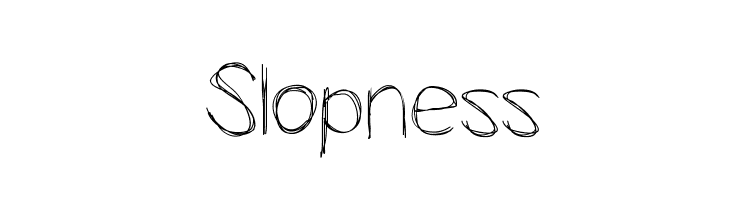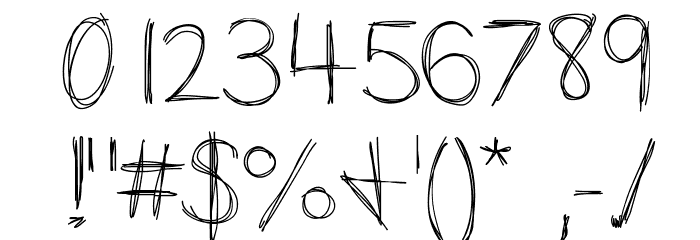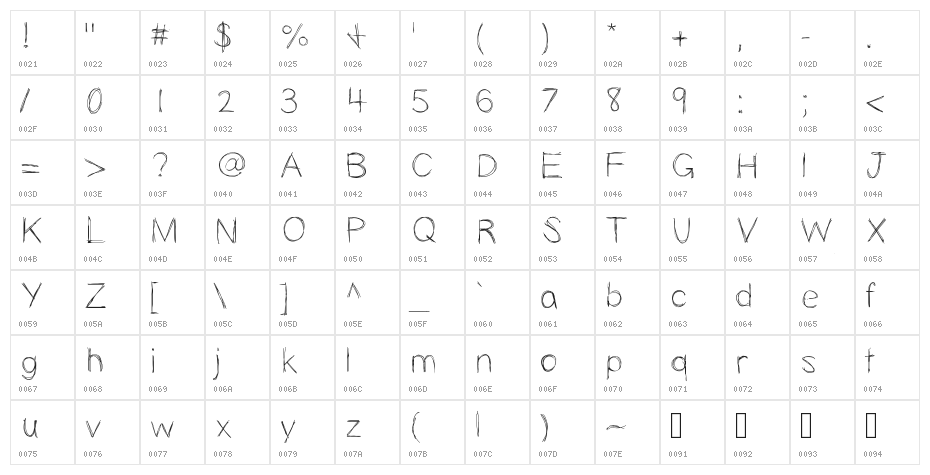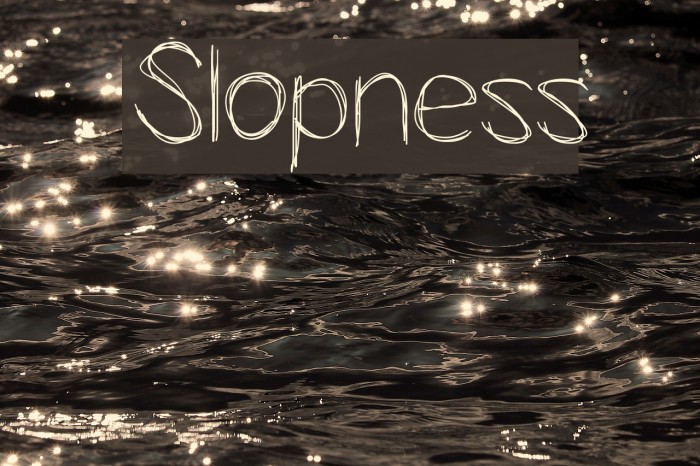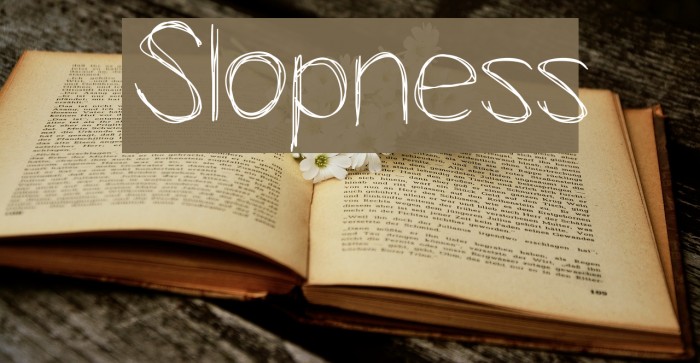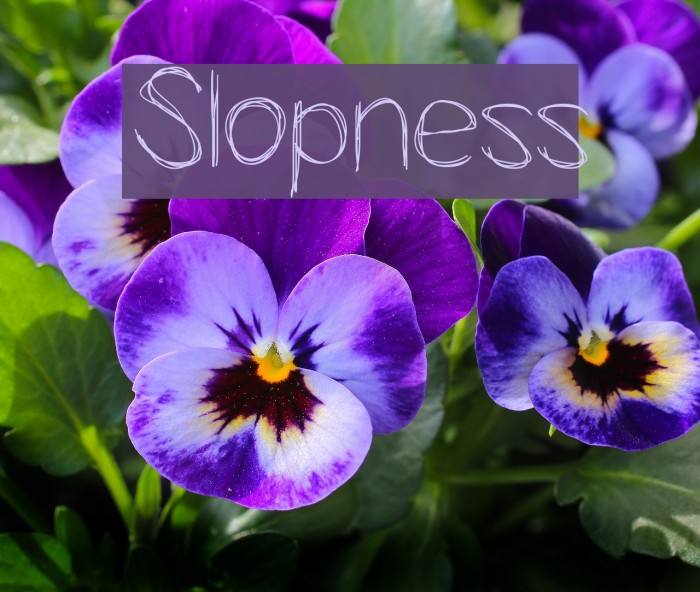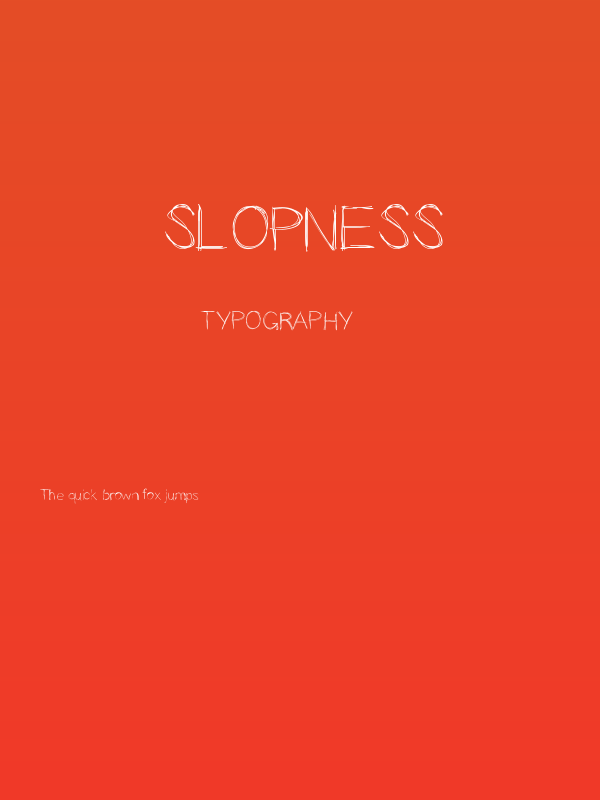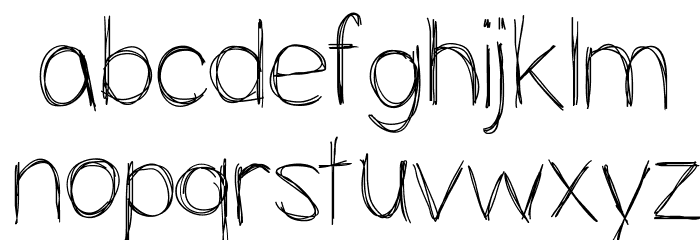
Slopness Font
Slopness Description
This font features a playful, hand-drawn style with a sketchy, uneven appearance. The letters are characterized by irregular strokes and a casual, artistic flair, giving it a unique and creative look. The uppercase and lowercase letters maintain a consistent style, with a slightly whimsical and informal tone. The numbers and special characters follow the same sketchy design, making the font suitable for projects that require a personal touch. Its distinctive style makes it stand out, adding a sense of individuality and creativity to any design.
| Proposed Projects | Ideal for children's books, creative posters, artistic branding, and casual invitations. |